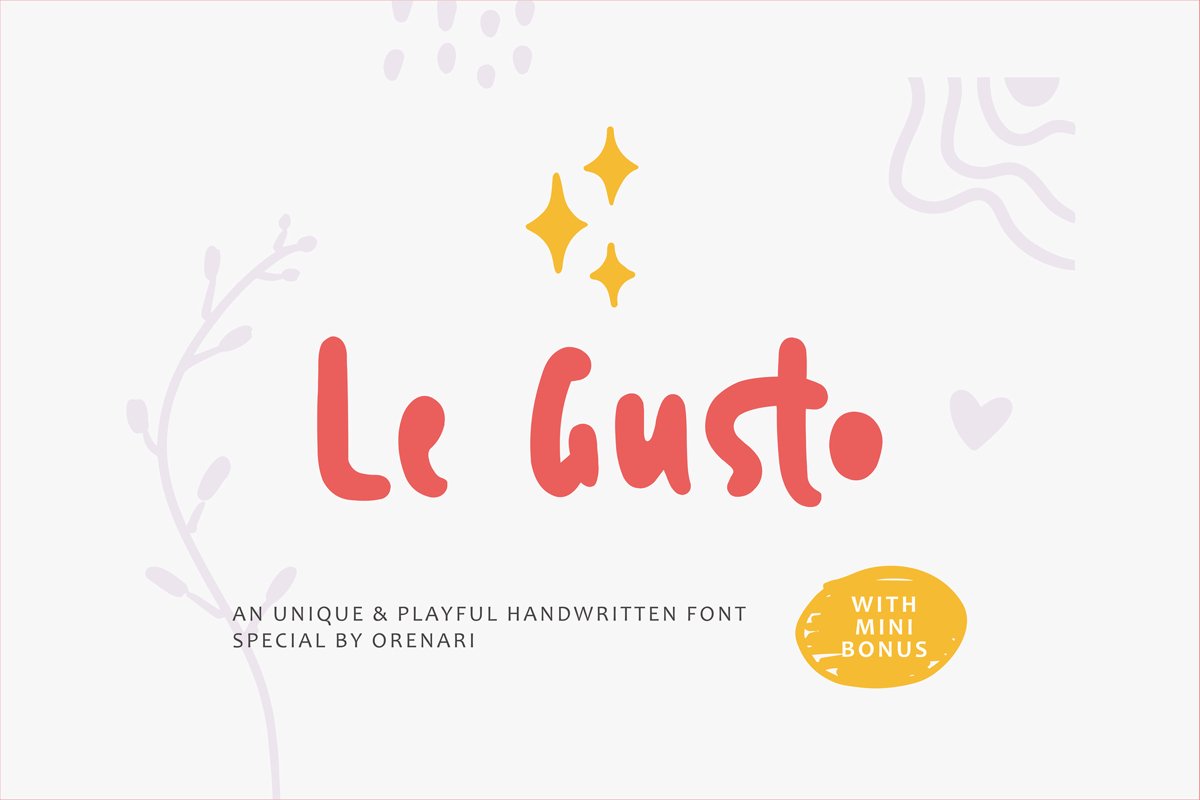
Le Gusto | Unique Font
IT'S A MUST HAVE FONT. Why?
Because Le Gusto is perfect for your unique projects, it's looks modern and fun. This font is 100% handwritten by my self and I put much love in each characters.
Le Gusto is Mùltïlingûål Šüppórt. And, oh, it's also came with mini vector bonus. YAY.